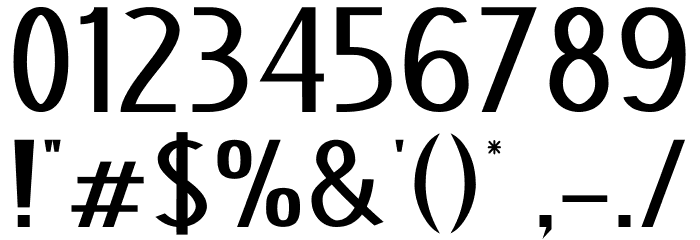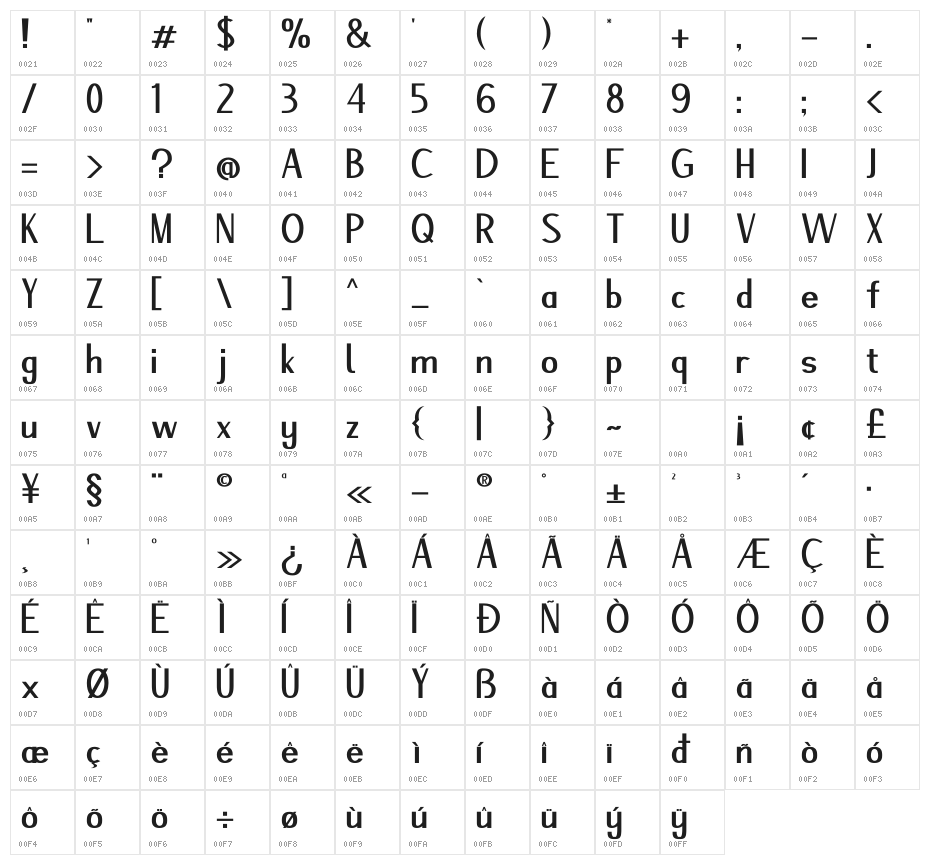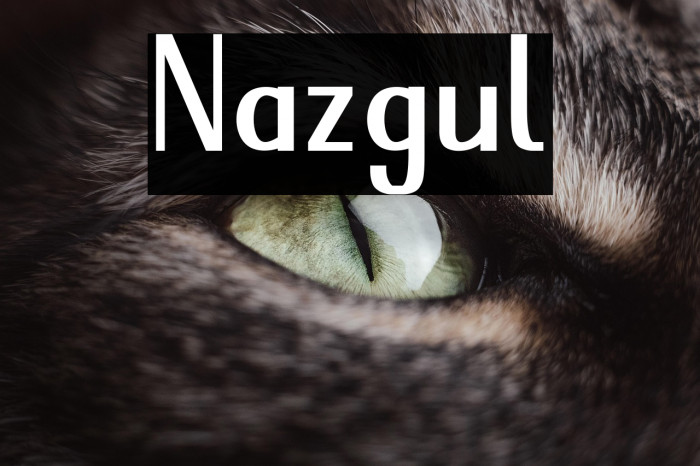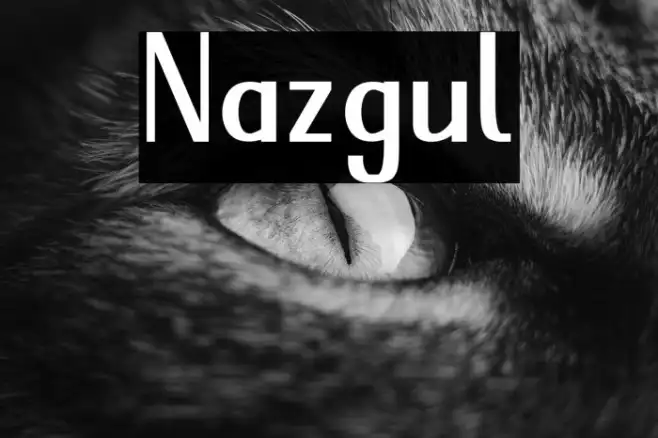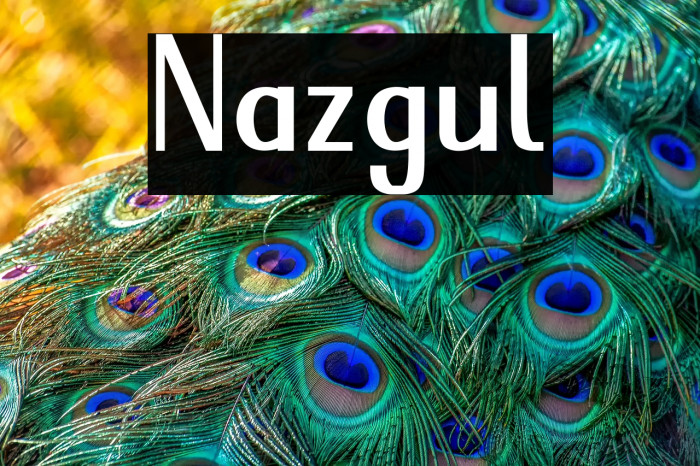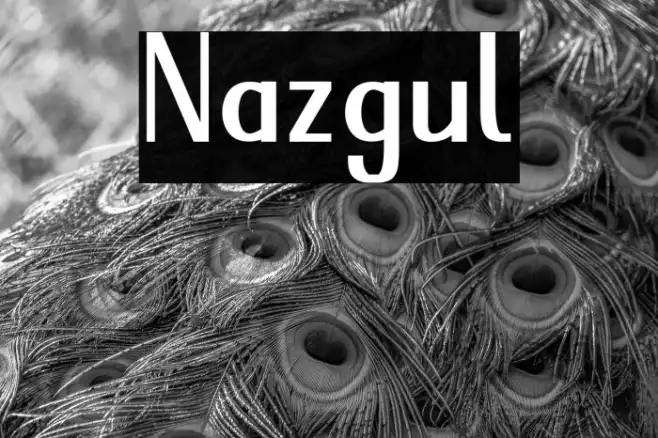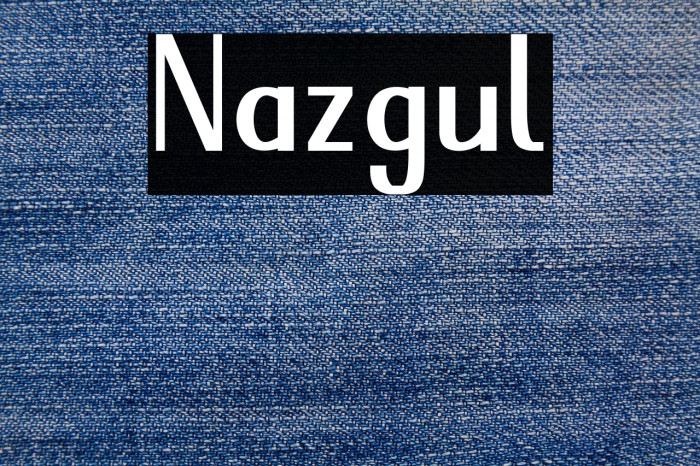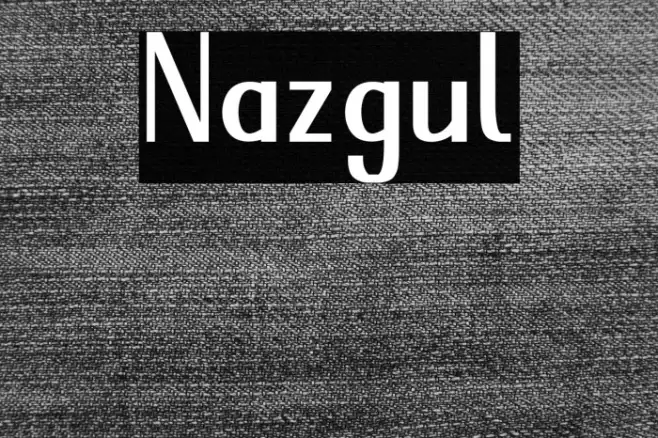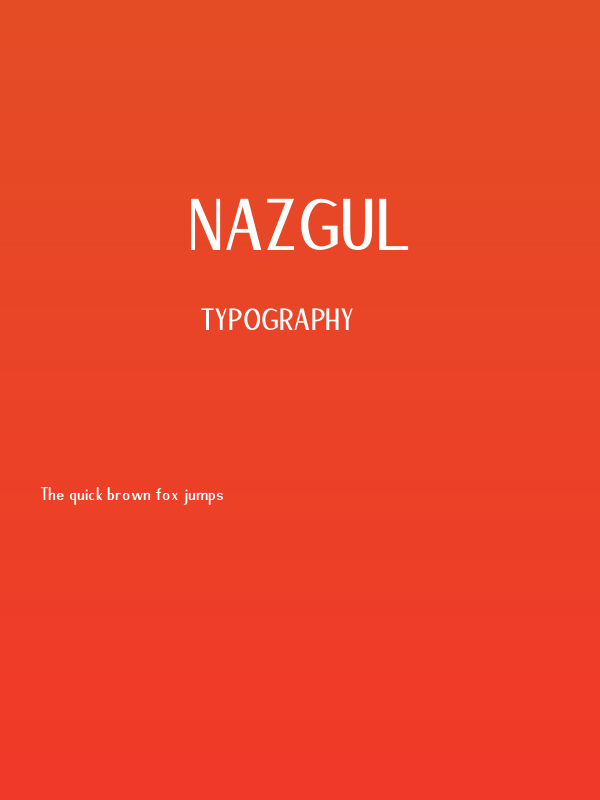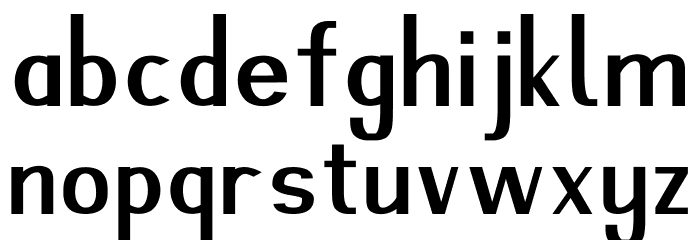
Nazgul Font
Nazgul Description
This font features a clean and modern sans-serif style with a balanced structure. The uppercase letters are tall and slightly narrow, providing a sleek and professional appearance. The lowercase letters maintain a consistent height, contributing to a harmonious and readable text flow. The numerals are clear and distinct, making them suitable for various applications. Special characters are well-defined, ensuring versatility in design projects. The overall design is straightforward yet elegant, making it a great choice for both digital and print media.
| Proposed Projects | Ideal for corporate branding, editorial design, web design, and advertising materials. |